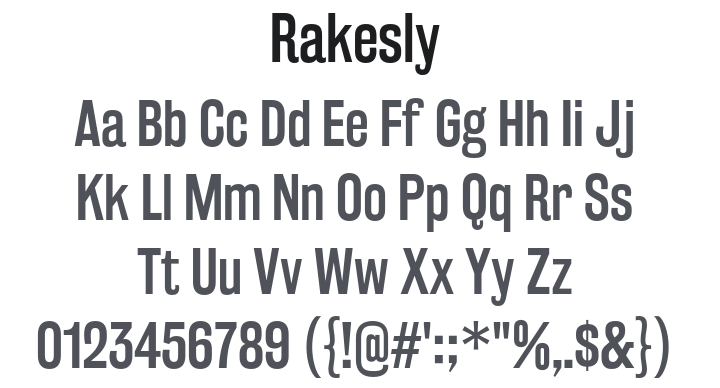
Rakesly Font Family
About Rakesly
Rakesly combines refined early-industrial sans serif design with the tactile richness of letterpress texture. Its core family offers six clean weights with italics, balancing nineteenth-century precision and Art Deco grace for contemporary versatility. The companion Rakesly Iron set adds four authentically textured styles; Regular, Italic, Bold, and Bold Italic, each built with integrated grain and contextual alternates for natural variation. Ideal for branding, publishing, packaging, and signage, the two families can stand alone or layer seamlessly for depth and warmth. With full Latin support, Rakesly unites modern clarity and crafted texture in a single, cohesive system.